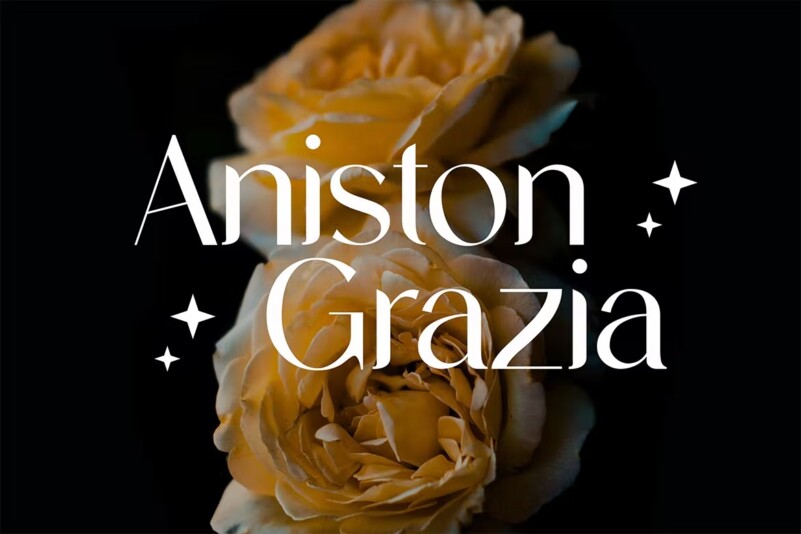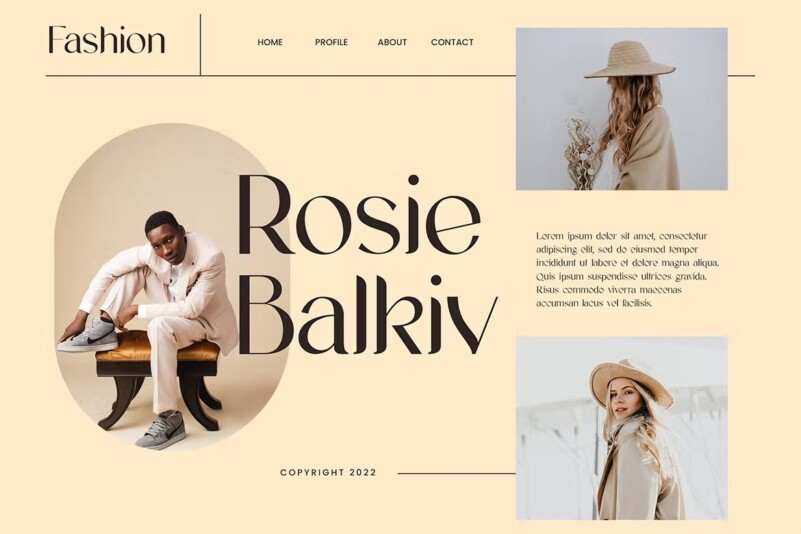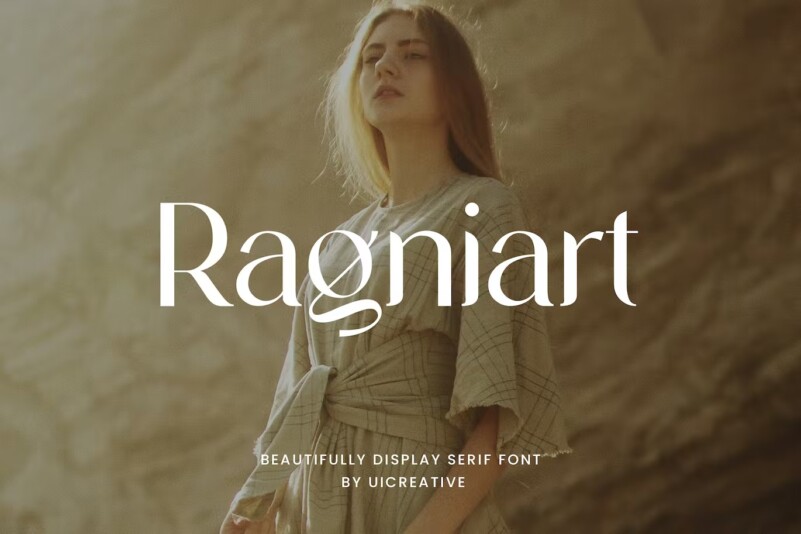
Ragniart – Display Serif Font
We present to you our new product which is called Ragniart Display Serif Font . A modern Display Serif font that is beautiful, classy, ​​elegant and modern. This font is perfect for a wide variety of projects, such as signature, stationery, logo, weddings, typographic quotes, magazine or book covers, website headers, apparel, branding, packaging design, etc. Additionally, fashion-related branding or editorial design exhibits both masculine and feminine qualities.